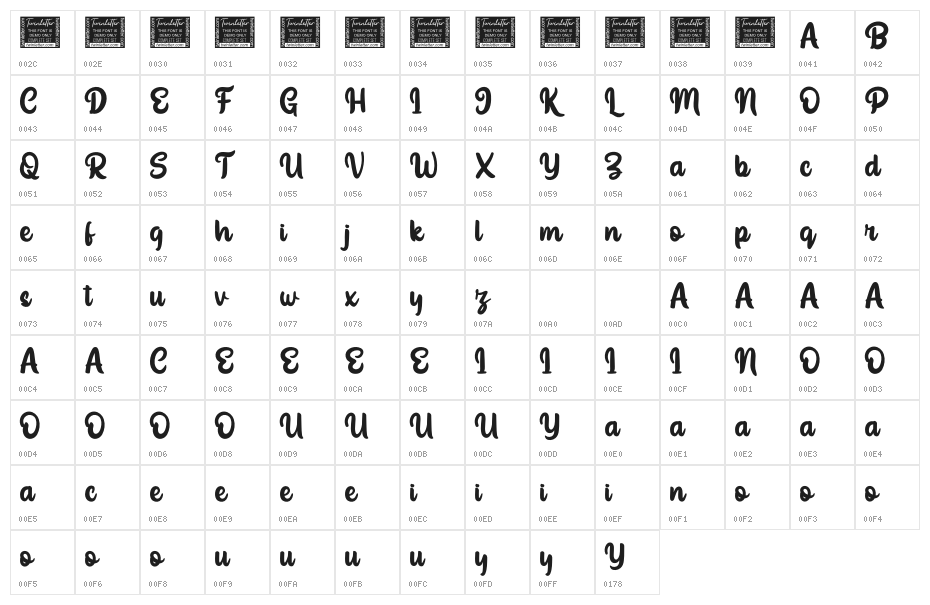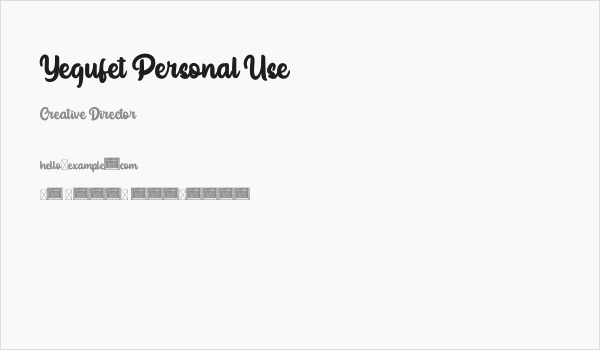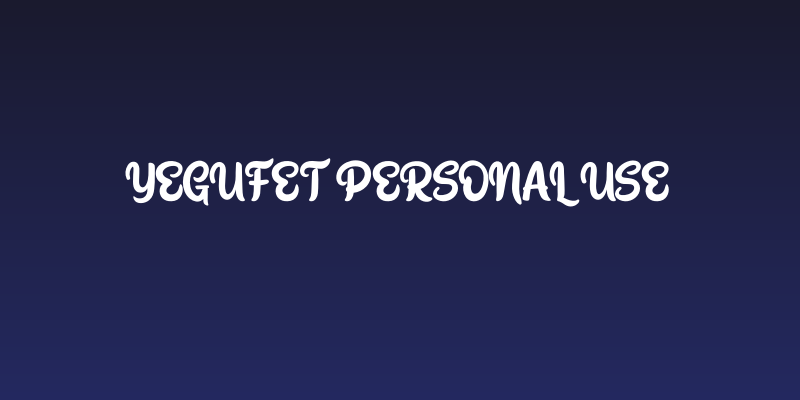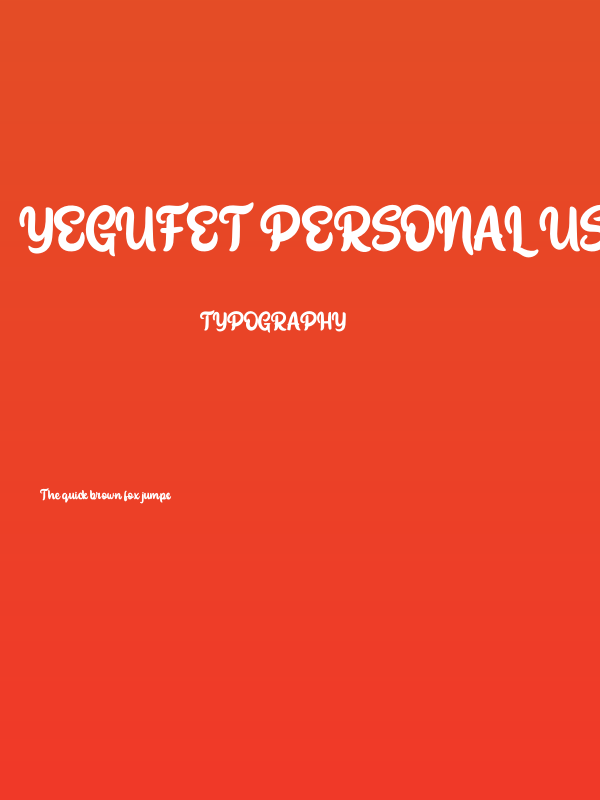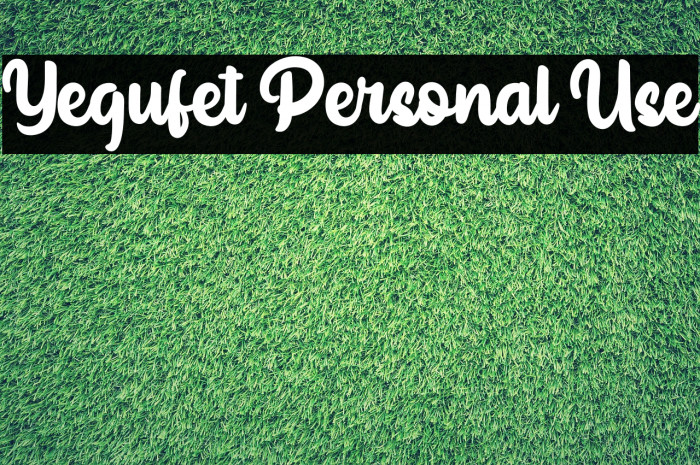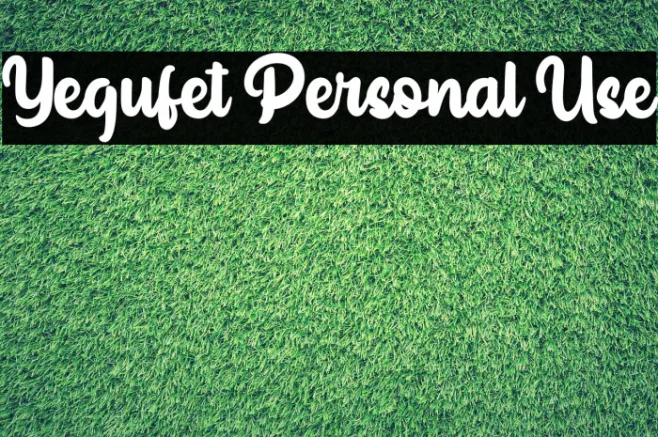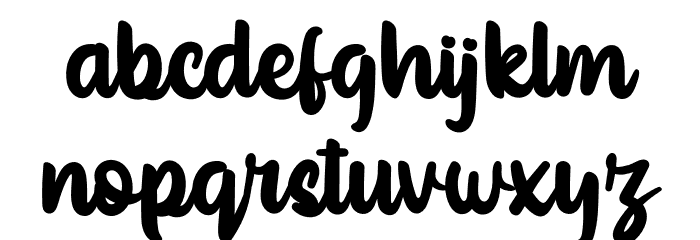
Yegufet Personal Use Font
Yegufet Personal Use Description
This font features a bold and playful script style with a handwritten feel. The uppercase letters are characterized by their flowing, cursive design, while the lowercase letters maintain a consistent, rounded appearance. The strokes are thick and uniform, providing a strong visual impact. The font includes a full set of uppercase and lowercase letters, numbers, and a selection of special characters. Its design is both modern and whimsical, making it suitable for creative and informal applications.
| Proposed Projects | Ideal for greeting cards, invitations, logos, and branding projects that require a personal touch. |